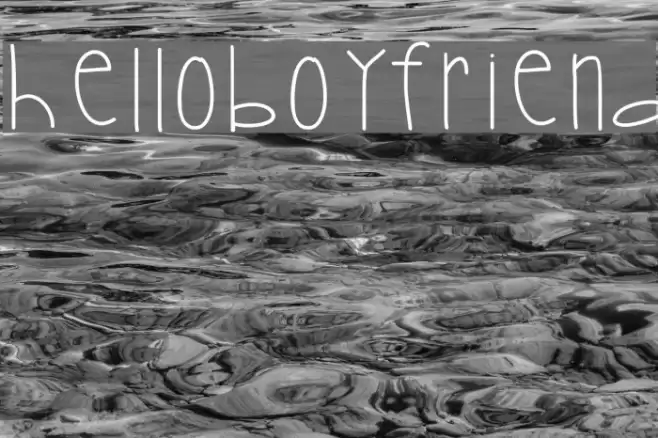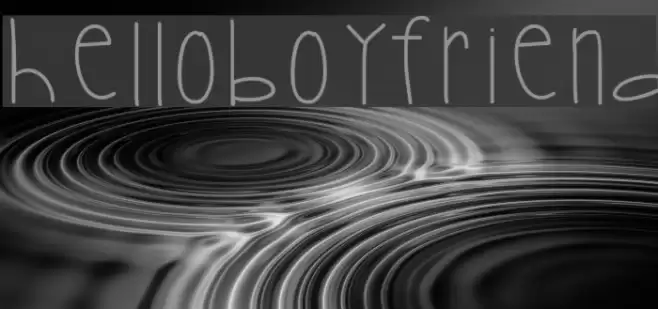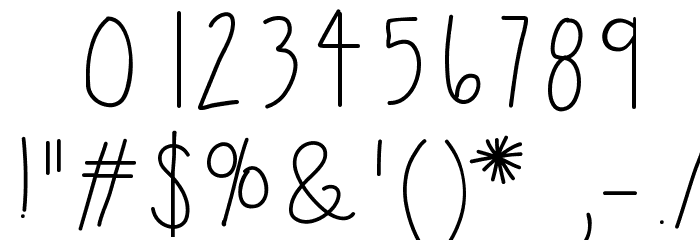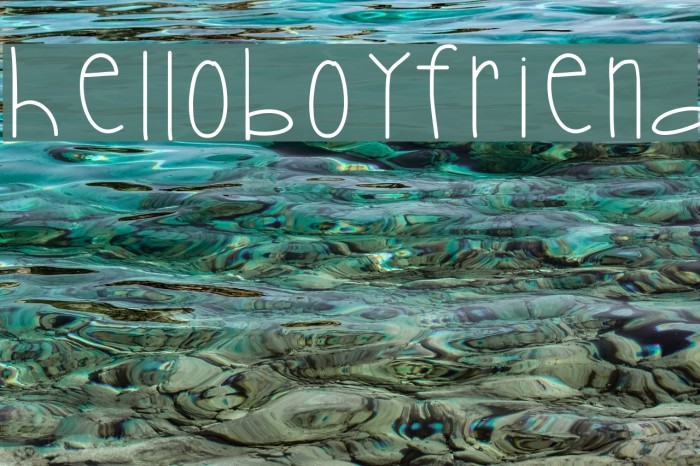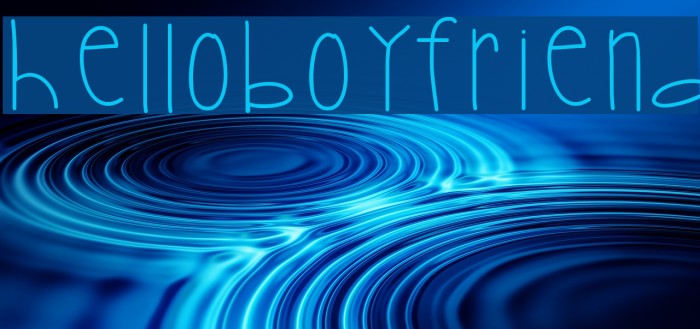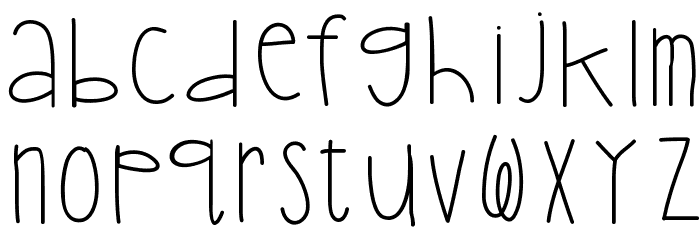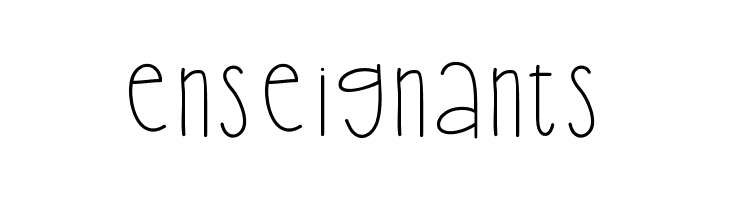
HelloBoyfriend Font
HelloBoyfriend Description
This playful and whimsical font features tall, narrow characters with a hand-drawn appearance. The strokes are consistent in width, giving it a uniform look while maintaining a casual and friendly vibe. The letters are slightly irregular, adding to the charm and uniqueness of the font. The uppercase and lowercase letters are distinct yet harmonious, with rounded edges and a slight tilt that suggests movement. The numerals and special characters follow the same style, ensuring a cohesive appearance across all text. This font is perfect for projects that require a personal touch or a fun, informal tone.
A playful, hand-drawn font with tall, narrow characters and a whimsical style from Handwritten fonts.
- Proposed Projects: Ideal for greeting cards, children's books, playful branding, and social media graphics.
- Overall Style: Whimsical
- Use Case: Headlines, Logos, Informal Text